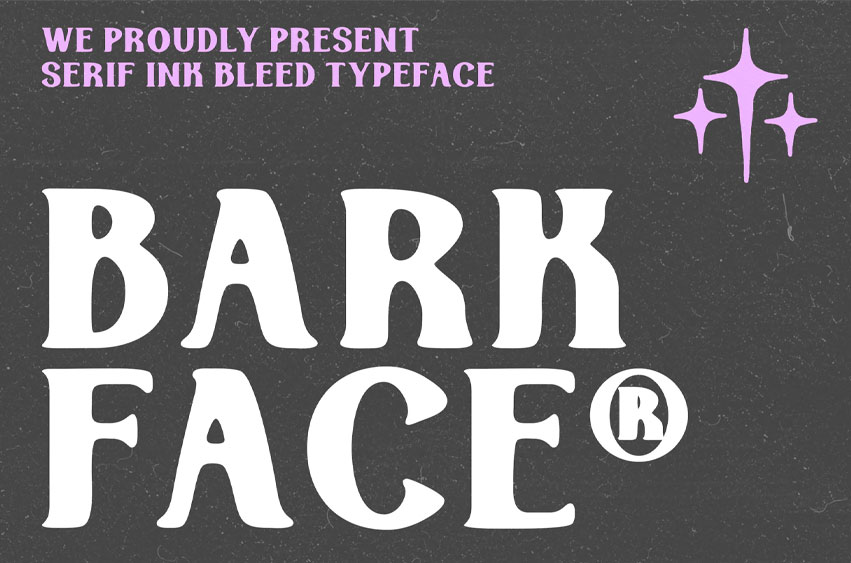
Barkface Font
Barkface Font is a bold serif ink bleed typeface inspired by vintage print culture and the raw energy of hand-stamped lettering. With its chunky rounded serifs, swollen strokes, and tactile ink-soaked personality, this font brings a loud, expressive, and unapologetically retro feel to any creative project.
Perfect for music merchandise, editorial headlines, poster design, zine covers, skateboard graphics, and bold social media content, Barkface delivers a heavy and confident look while staying playful and full of character. Its ink bleed aesthetic makes it especially suitable for projects that want to feel gritty, nostalgic, handcrafted, and distinctly bold.